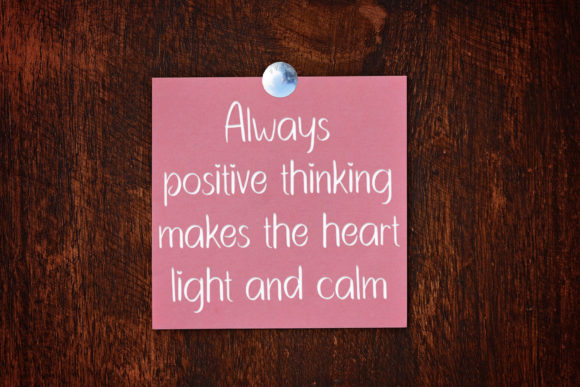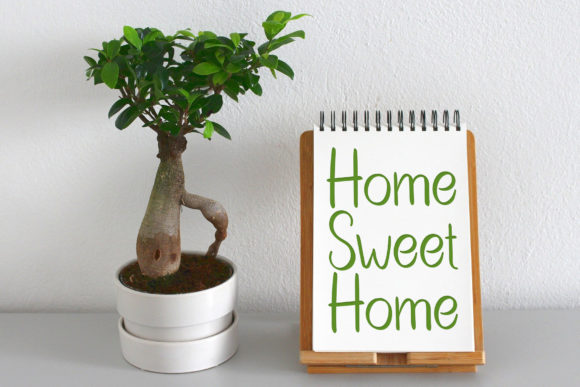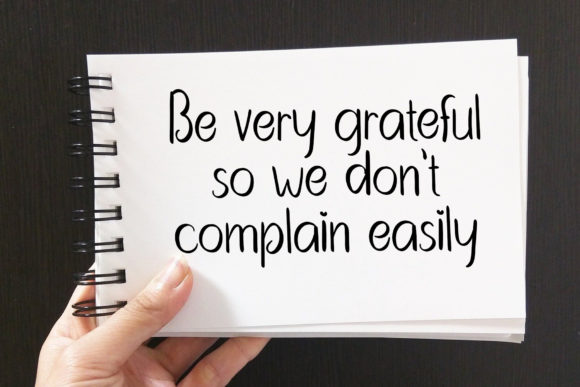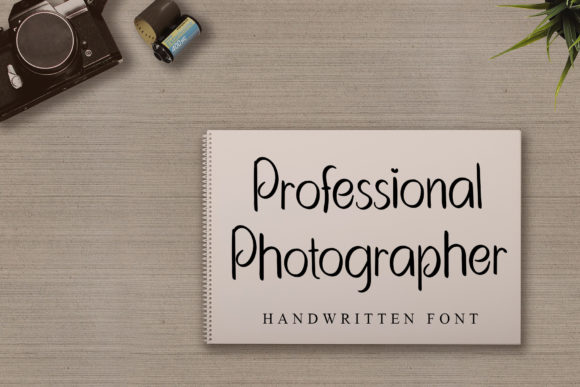
Introducing Cooling Font: The Perfect Choice for Fashion Branding and Editorial Designs
In the world of typography, fonts play a crucial role in conveying the tone and personality of a brand or design. For designers and crafters looking for a font that exudes a sense of relaxation and adaptability, Cooling Font is an excellent choice. This simple and dainty handwritten font features a smooth, cursive style that is perfect for fashion branding or editorial designs.
What Makes Cooling Font Stand Out?
Cooling Font is defined by its smooth curves and effortless flow, making it an ideal choice for designers who want to add a touch of elegance to their work. The font’s relaxed style is perfect for creating a sense of calmness and serenity, which is often desired in fashion branding and editorial designs. Whether you’re working on a fashion magazine, a clothing brand, or a lifestyle blog, Cooling Font is sure to make your design stand out.
Key Features of Cooling Font
- Handwritten style: Cooling Font features a beautiful, handwritten style that adds a personal touch to any design.
- Smooth curves: The font’s smooth curves create a sense of fluidity and elegance, making it perfect for fashion branding and editorial designs.
- Relaxed and adaptable: Cooling Font’s relaxed style makes it adaptable to various design contexts, from fashion magazines to clothing brands.
- Simple and dainty: The font’s simplicity and delicacy make it easy to pair with other design elements, ensuring a clean and uncluttered look.
Use Cases for Cooling Font
Cooling Font is a versatile font that can be used in various design contexts. Here are some use cases where Cooling Font shines:
- Fashion branding: Use Cooling Font to create a stylish and elegant brand identity for your fashion brand.
- Editorial designs: Add a touch of sophistication to your fashion magazine or blog with Cooling Font.
- Clothing brand: Create a beautiful and eye-catching label or packaging design with Cooling Font.
- Lifestyle blog: Use Cooling Font to add a personal touch to your lifestyle blog or social media graphics.
Tips for Using Cooling Font Effectively
To get the most out of Cooling Font, here are some tips to keep in mind:
- Pair with bold fonts: Combine Cooling Font with bold fonts to create a striking contrast and add visual interest to your design.
- Experiment with colors: Try pairing Cooling Font with different colors to create a unique and eye-catching design.
- Use it sparingly: Use Cooling Font sparingly to create a sense of elegance and sophistication.
Cooling Font is a beautiful and versatile font that is perfect for designers and crafters looking for a relaxed and adaptable style. With its smooth curves and effortless flow, Cooling Font is sure to add a touch of elegance to any design. Whether you’re working on a fashion brand, editorial design, or lifestyle blog, Cooling Font is an excellent choice. So why not give it a try and see how it can elevate your design?